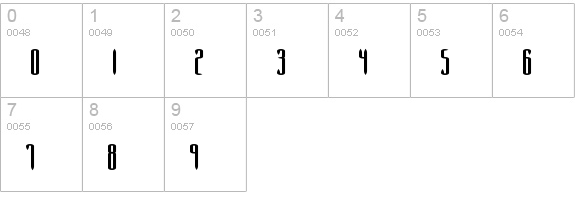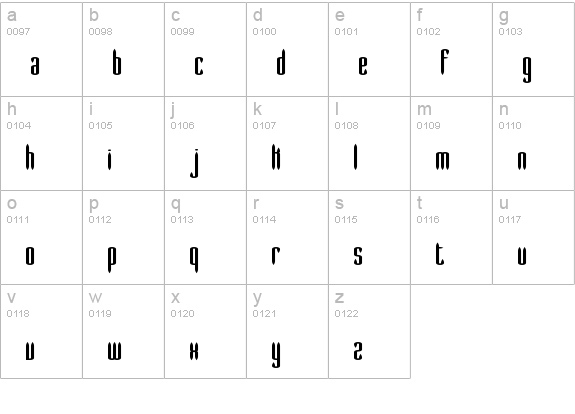
Slender Wide BRK Font Details
Slender Wide BRK is a distinctive, extended-width variant in the Slender typeface family \xE2\x80\x94 well suited to design and typography projects.
Slender Wide BRK font is a captivating typeface that effortlessly combines elegance and versatility. With its sleek and slender letterforms, this font exudes a modern and sophisticated vibe that is perfect for a wide range of design projects. Featuring a unique balance between thin and wide strokes, Slender Wide BRK font adds a touch of sophistication to any text it graces. Its clean and crisp lines make it legible even at smaller sizes, making it ideal for both print and digital mediums. But what makes Slender Wide BRK font truly special is that it is freely available to download at FontsMarket.com. This means that you can add this stunning font to your collection without any cost, allowing you to unleash your creativity without any limitations. Whether you're designing a logo, creating a website, or designing a poster, Slender Wide BRK font will elevate your project to new heights. Its versatility allows it to seamlessly adapt to various design styles, ensuring that it will always be the perfect choice for your typographic needs. With its free availability and remarkable aesthetics, Slender Wide BRK font is a must-have for any designer or creative enthusiast. Download it today from FontsMarket.com and unlock the potential of this remarkable typeface.